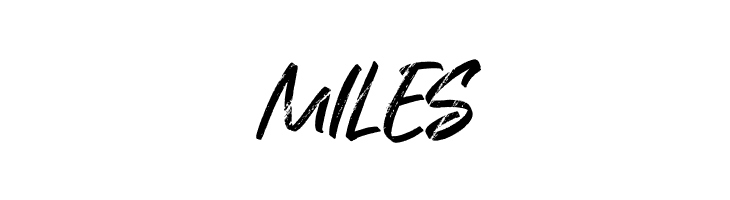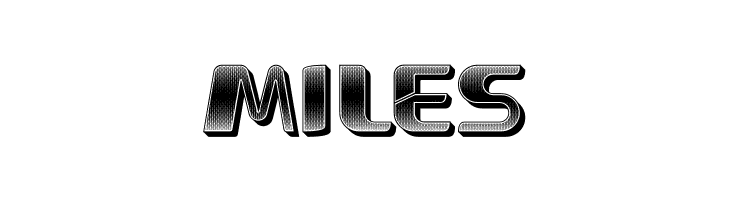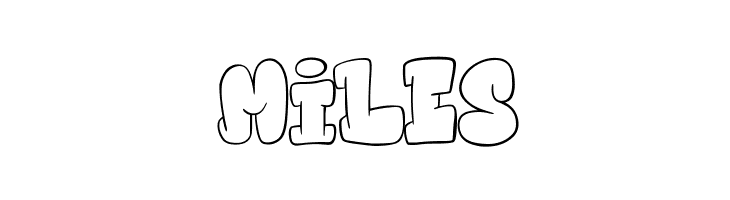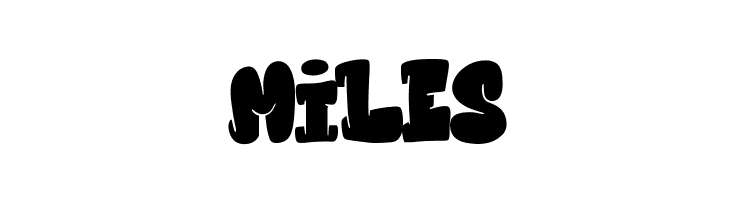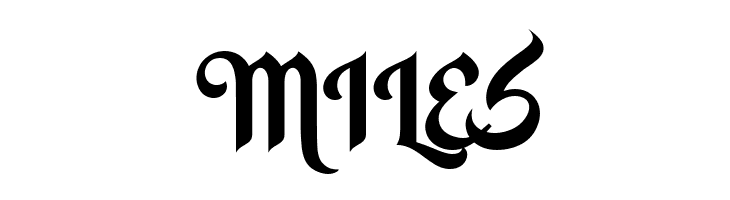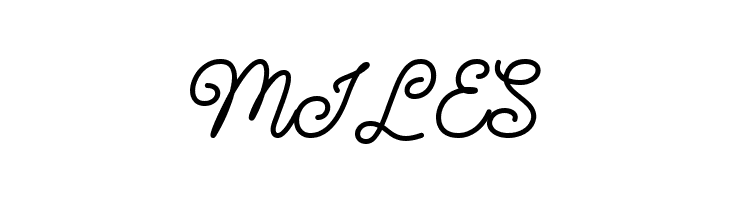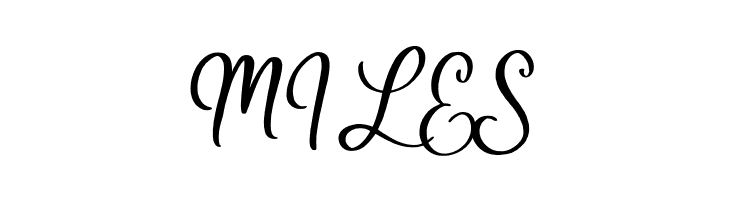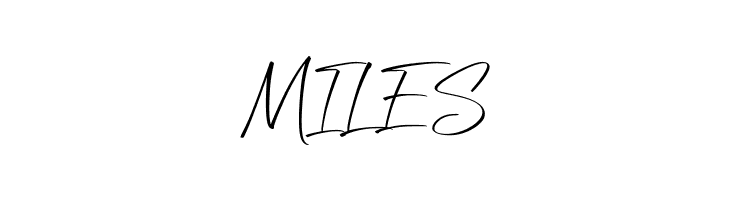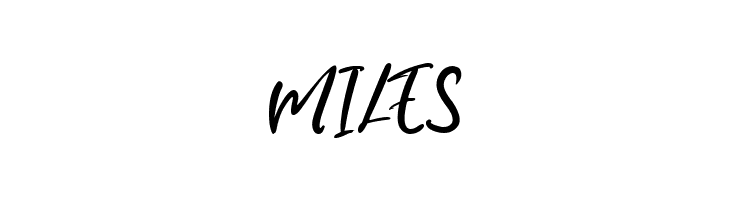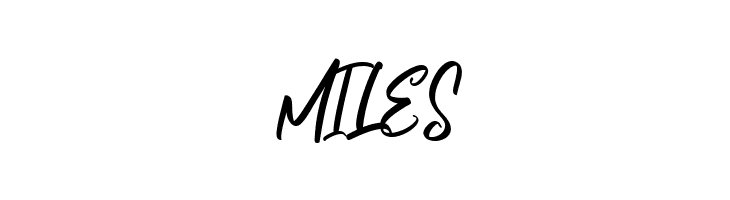
A bold, playful handwritten font with rounded, expressive strokes.
A playful, casual handwritten font with an informal, organic style.
A playful, thin, handwritten font with a casual and friendly style.
A lively, flowing script font with an elegant, handwritten style.
A lively and expressive handwritten font with fluid strokes and dynamic style.
A bold, monospaced font with a modern and clean design, ideal for technical use.
A bold, monospaced typeface with a modern, geometric design.
A modern, monospaced font with clean lines and excellent readability.
A modern, monospaced font with a clean and geometric design.
A playful, bold font with rounded edges and a hand-drawn aesthetic.
A bold, textured script font with a hand-painted, dynamic style.
A bold, handwritten font with dynamic, brush-like strokes.
A bold, blackletter-inspired font with sharp, angular lines and intricate detailing.
A playful, cursive font with flowing, interconnected strokes.
A bold, playful font with a cartoon-like, quirky style.
A bold, flowing script font with a dynamic and elegant handwritten style.
A bold, playful, and blocky font with a cartoonish style.
A playful, bold, and bubble-like font with a hand-drawn aesthetic.
A bold, flowing script font with a dynamic, handwritten style.
A bold, 3D decorative font with shadow effects and textured patterns.
A bold, graffiti-inspired font with dynamic, angular characters.
A playful, handwritten font with fluid strokes and a lively aesthetic.
A flowing, cursive font with elegant loops and smooth transitions.
A dynamic and expressive script font with fluid, energetic strokes.
A sophisticated, elegant handwritten font with fluid strokes and a natural flow.
A bold, geometric font with a three-dimensional outline effect.
A flowing, cursive font with elegant, elongated strokes and a handwritten style.
A flowing, elegant script font with a natural handwriting style.
A bold, distressed font with a vintage, industrial feel.
A playful handwritten font with artistic loops and curves.
A flowing, elegant script font with classic and modern elements.
A decorative cursive font with elegant loops and swashes.
A classic serif font with elegant, elongated strokes and refined appearance.
A dynamic and elegant script font with fluid strokes and a sophisticated style.